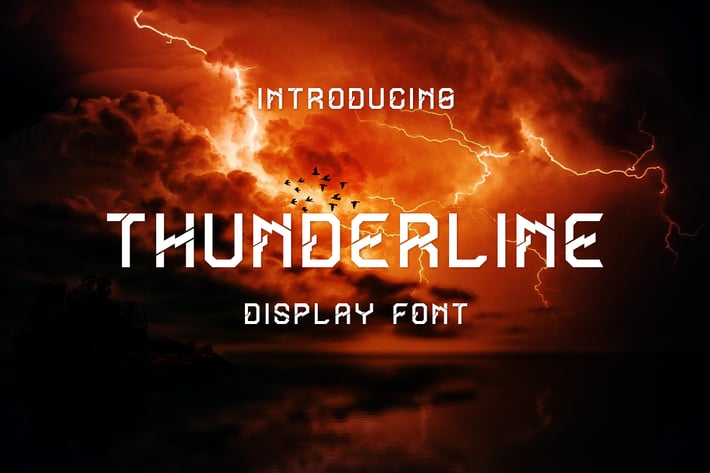
Thunderline Display Font
Thunderline Display font.
Thunderline Display font can be used in different purposes: logo and branding, sci-fi poster, product packaging, advertising, invitations, port apparel, game industry, movie and any futuristic typography design projects.